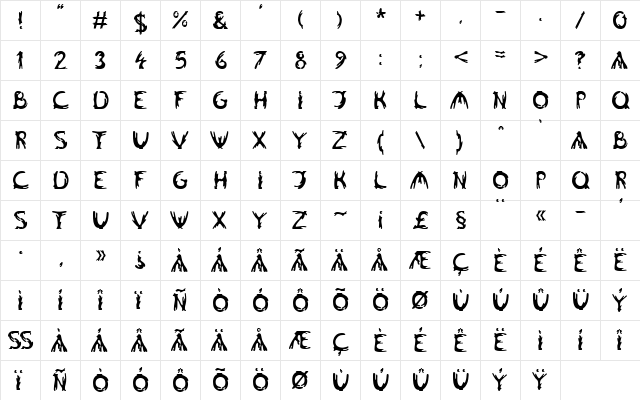
LTAlgologfont Medium
LTAlgologfont is a composed and adaptable typeface that performs quietly and consistently across a wide range of design contexts.